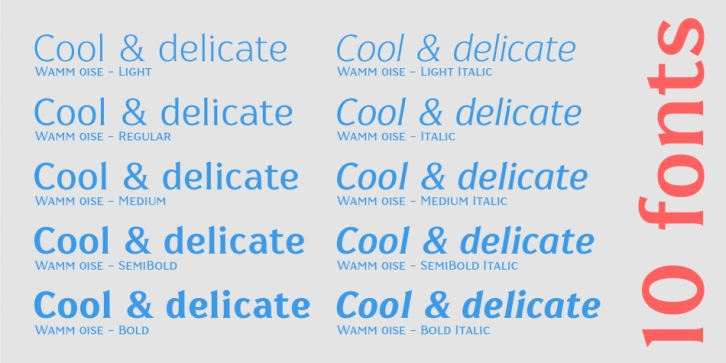
Wamm 01SE is a serif font family. This typeface has ten styles and was published by WAMM.
Wamm 01SE is a serif typeface designed to respond to packaging, editorial and branding needs, for both print and digital touch-points.
It is contemporary and classic at the same time and the range of available styles makes it suitable for a large number of purpose.
The design is the sweet spot between personality and legibility: beautiful at headline size, perfectly readable at body copy size.
The low contrast and the small serifs render perfectly on screen at a reasonably small size (and weight).